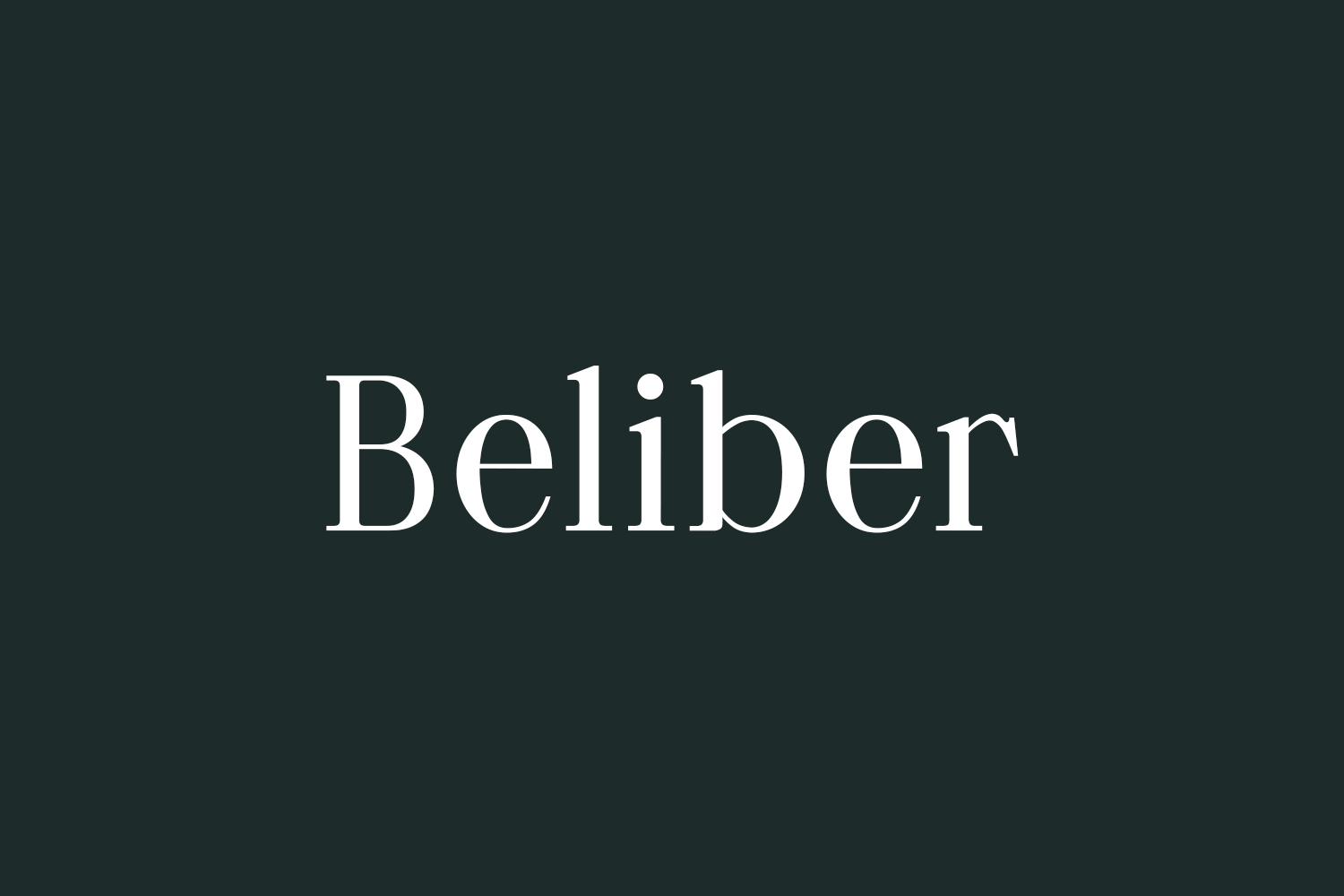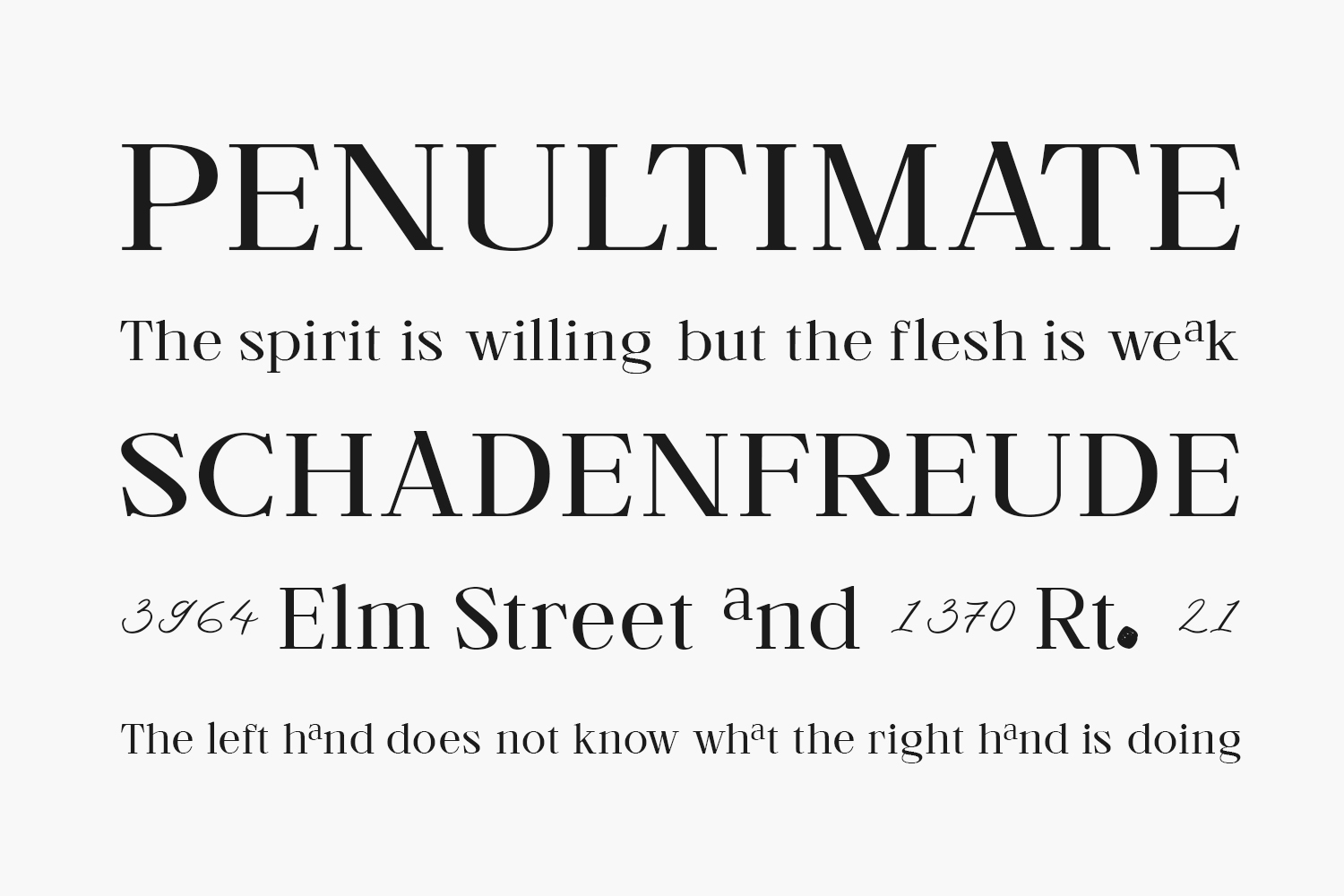
Beliber Free Font is a beautiful serif font specially crafted to give your designs the best high-quality feel. Add it to any of your creative projects, and notice how they capture everyone’s attention. Beliber Free Font was designed by Ridwan Fadilah is a demo and free for personal use only. Please purchase the full version for commercial use.